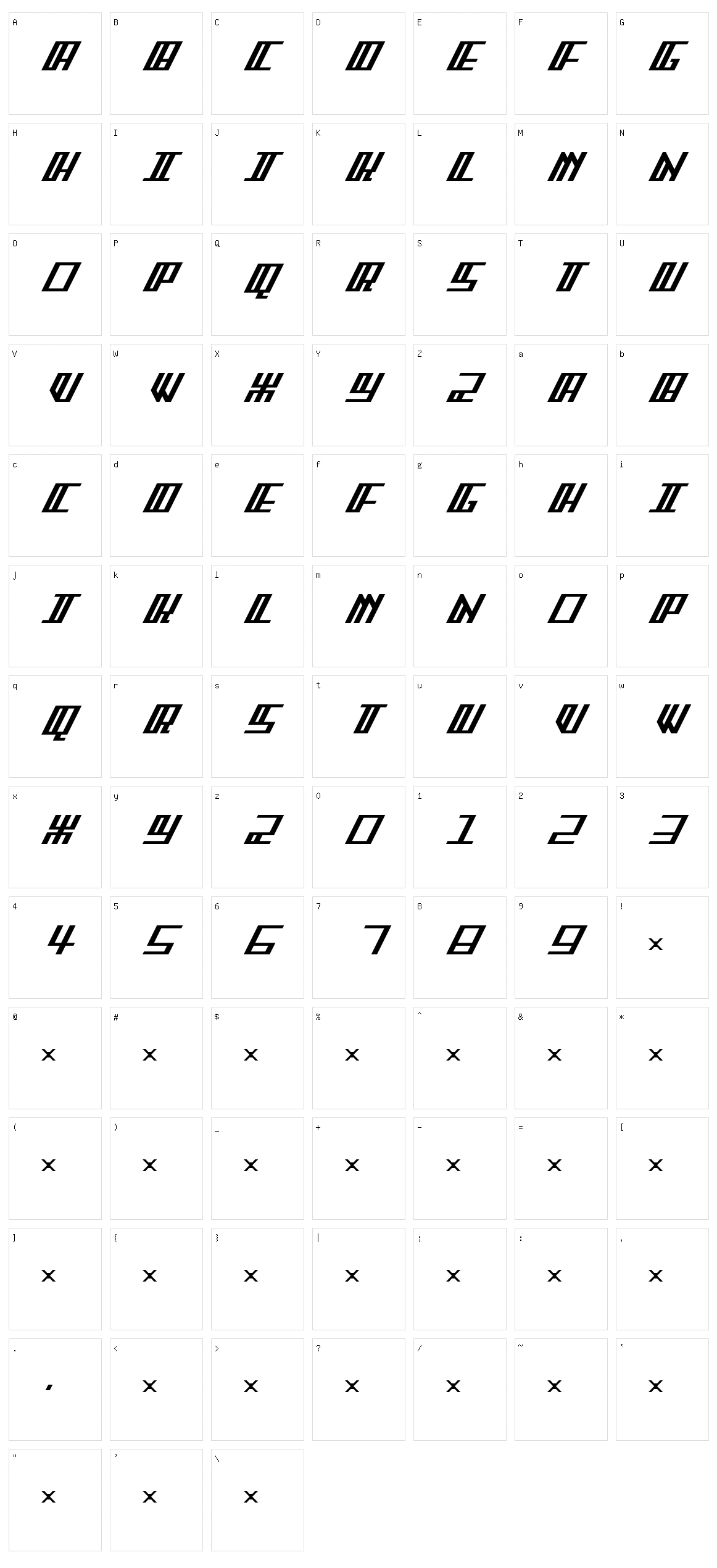
The free font Arcader FS is carefully designed by Fred Sirman, showcasing a thoughtful balance of creativity and usability and falls under the Square font style. When you download the ZIP file, it contains only 2.99 KB of font files, making it lightweight and quick to download. Please review the license details below to understand permitted usage and distribution rights. If license information is not available, we recommend using this font for personal projects only or contacting the author directly for commercial usage permissions.